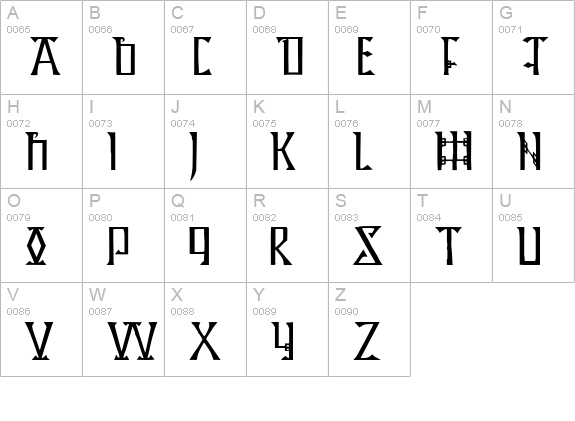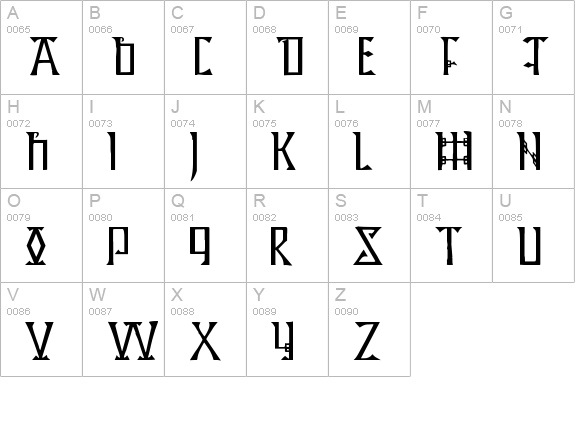
Lindisfarne Font Details
Lindisfarne font is a beautifully crafted typeface that exudes elegance and sophistication. With its intricate details and timeless appeal, this font is perfect for adding a touch of class to your designs. The flowing lines and delicate serifs of Lindisfarne font create a sense of grace and refinement, making it ideal for use in projects that require a touch of sophistication. Best of all, Lindisfarne font is available for free download at FontsMarket.com. This means that you can easily add this stunning font to your collection without breaking the bank. Whether you're working on a branding project, a wedding invitation, or any other design that calls for a touch of elegance, Lindisfarne font is sure to impress. Download it today and elevate your designs to the next level with this exquisite typeface.